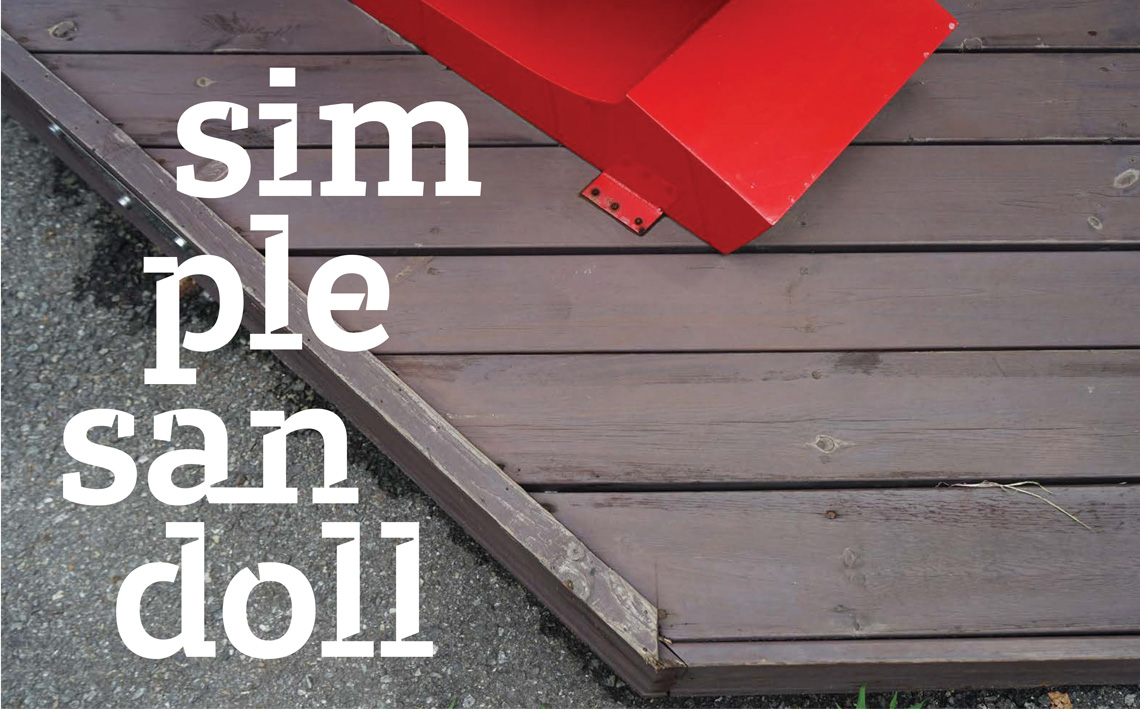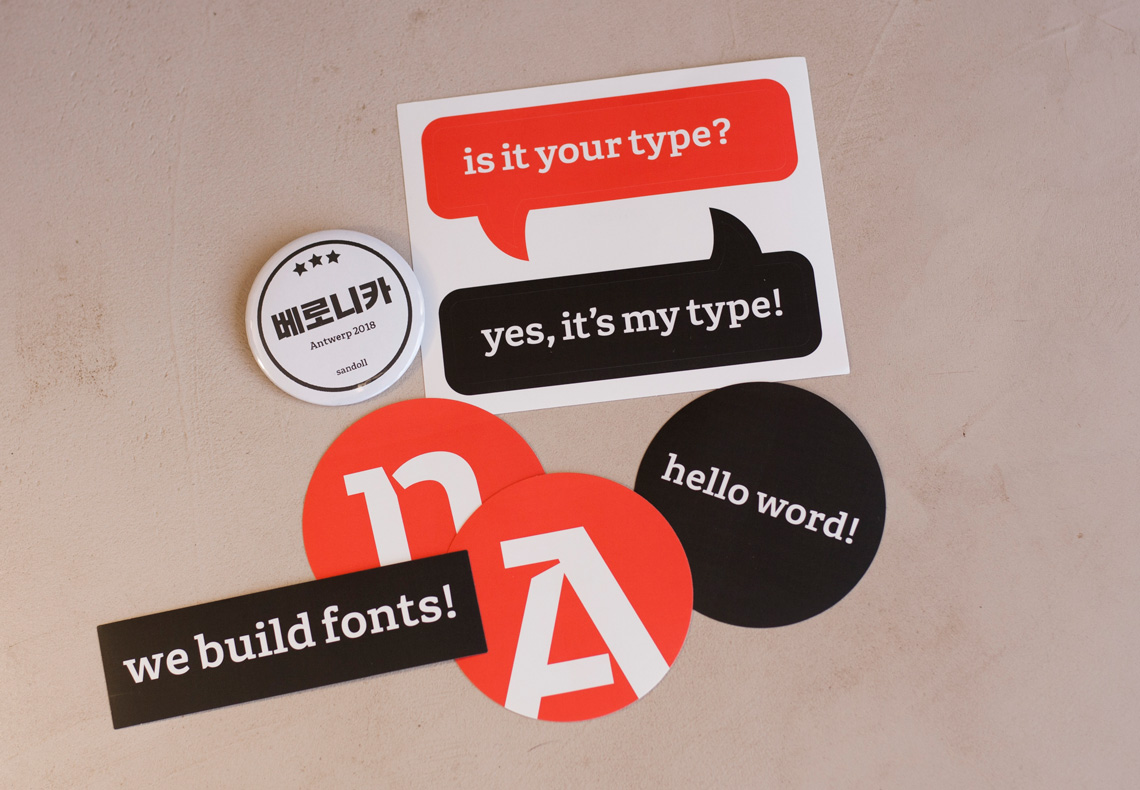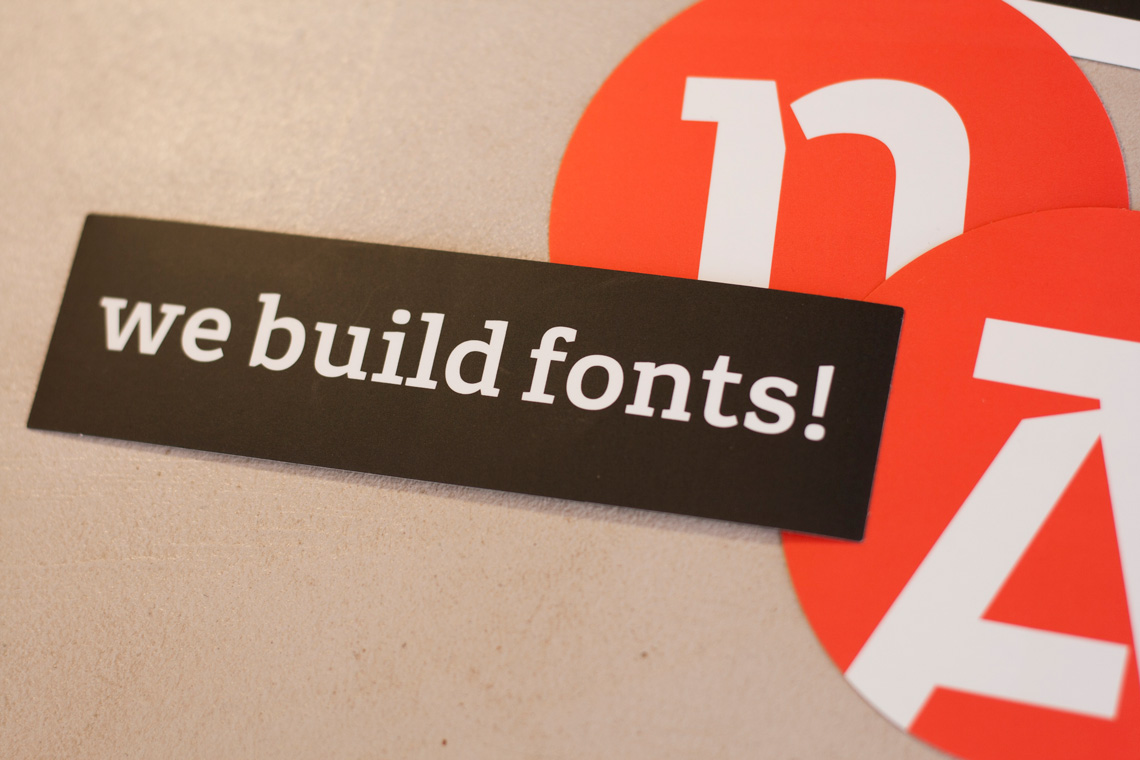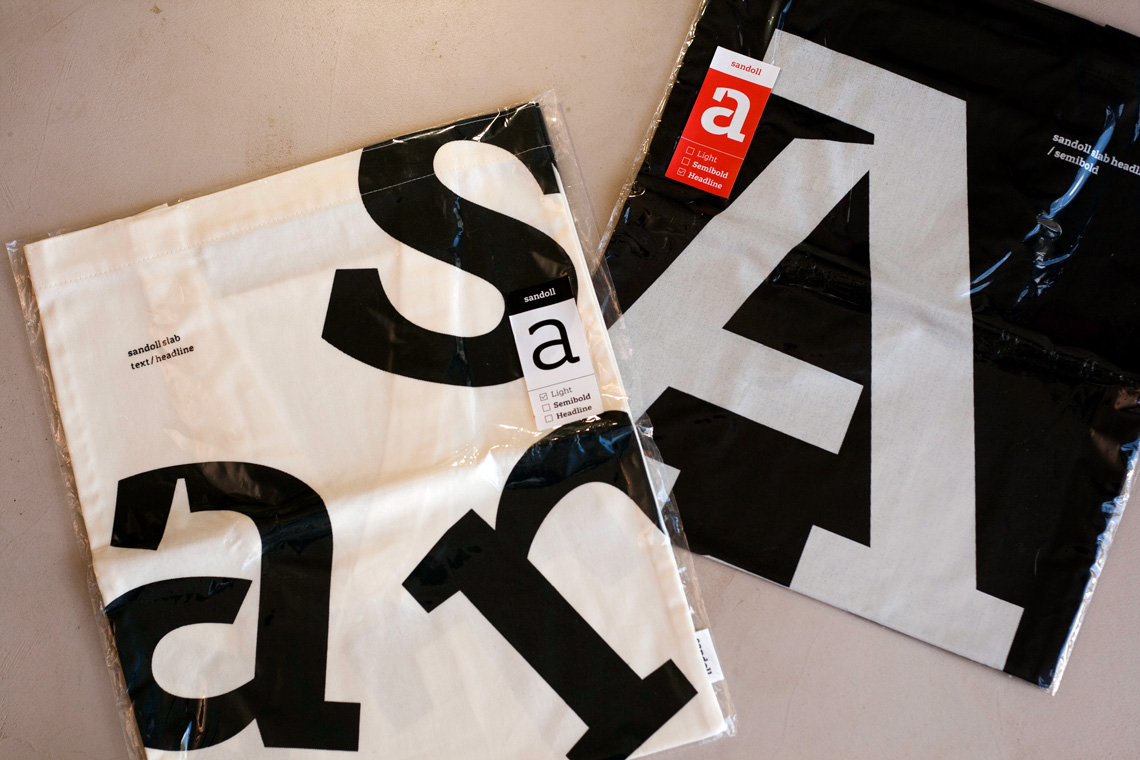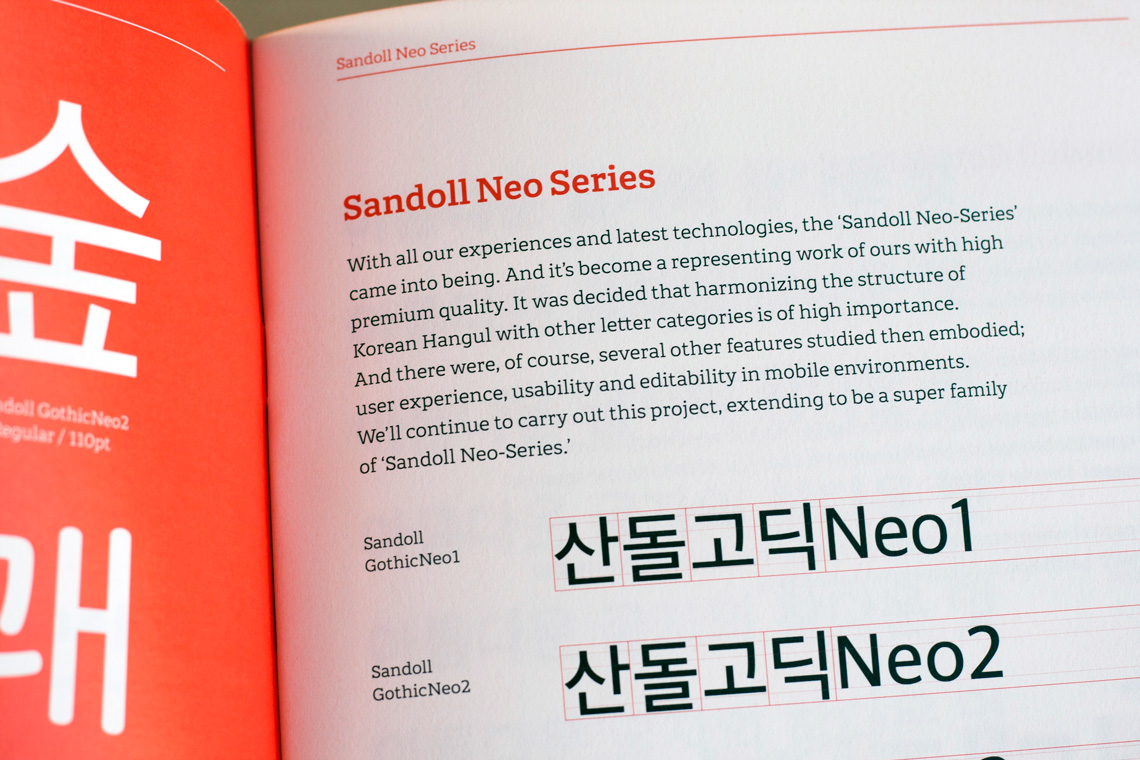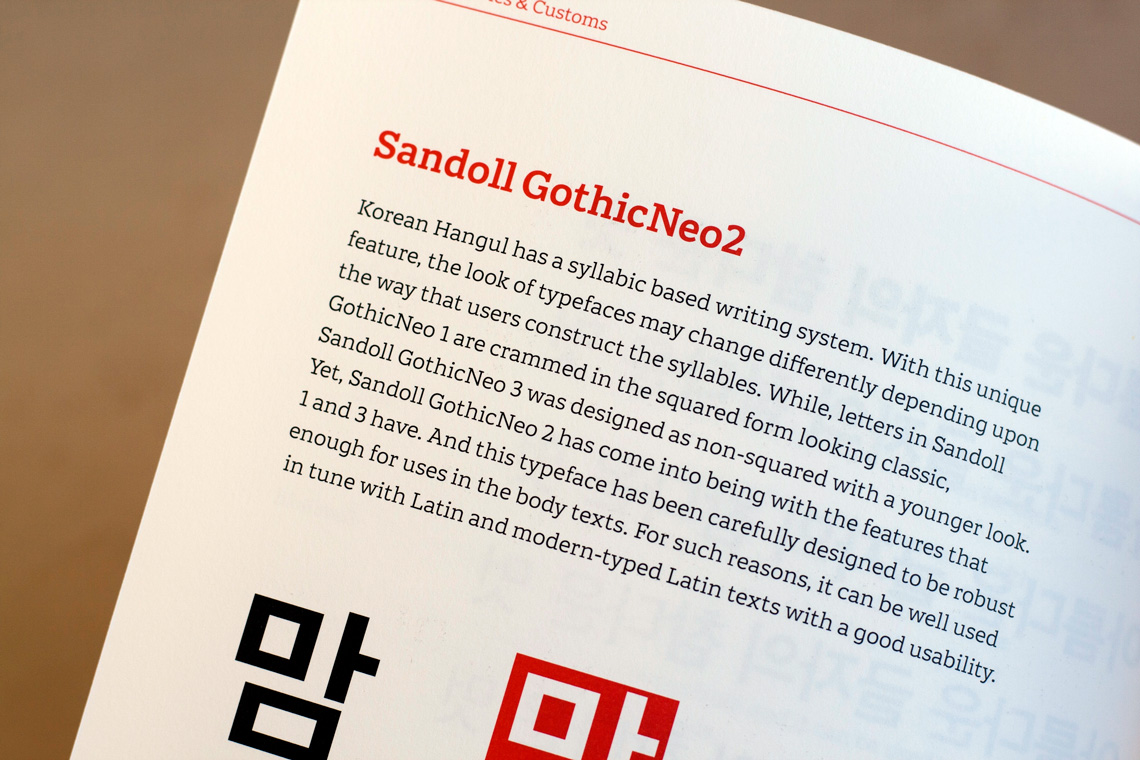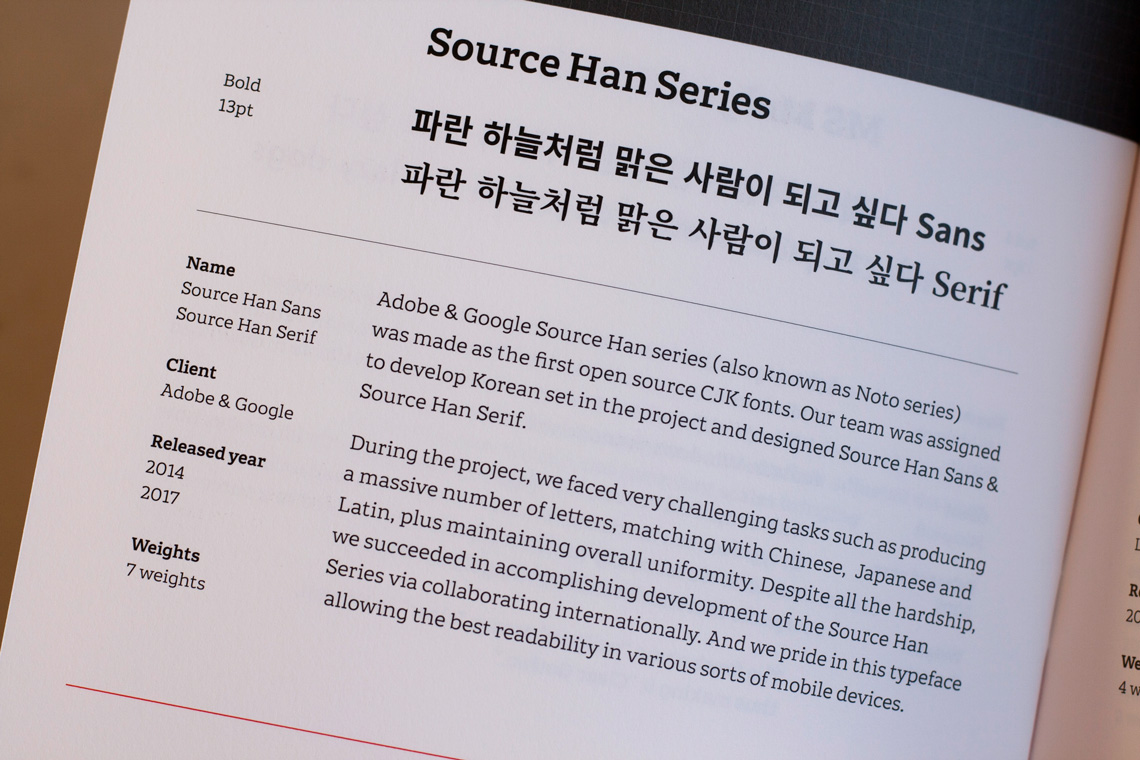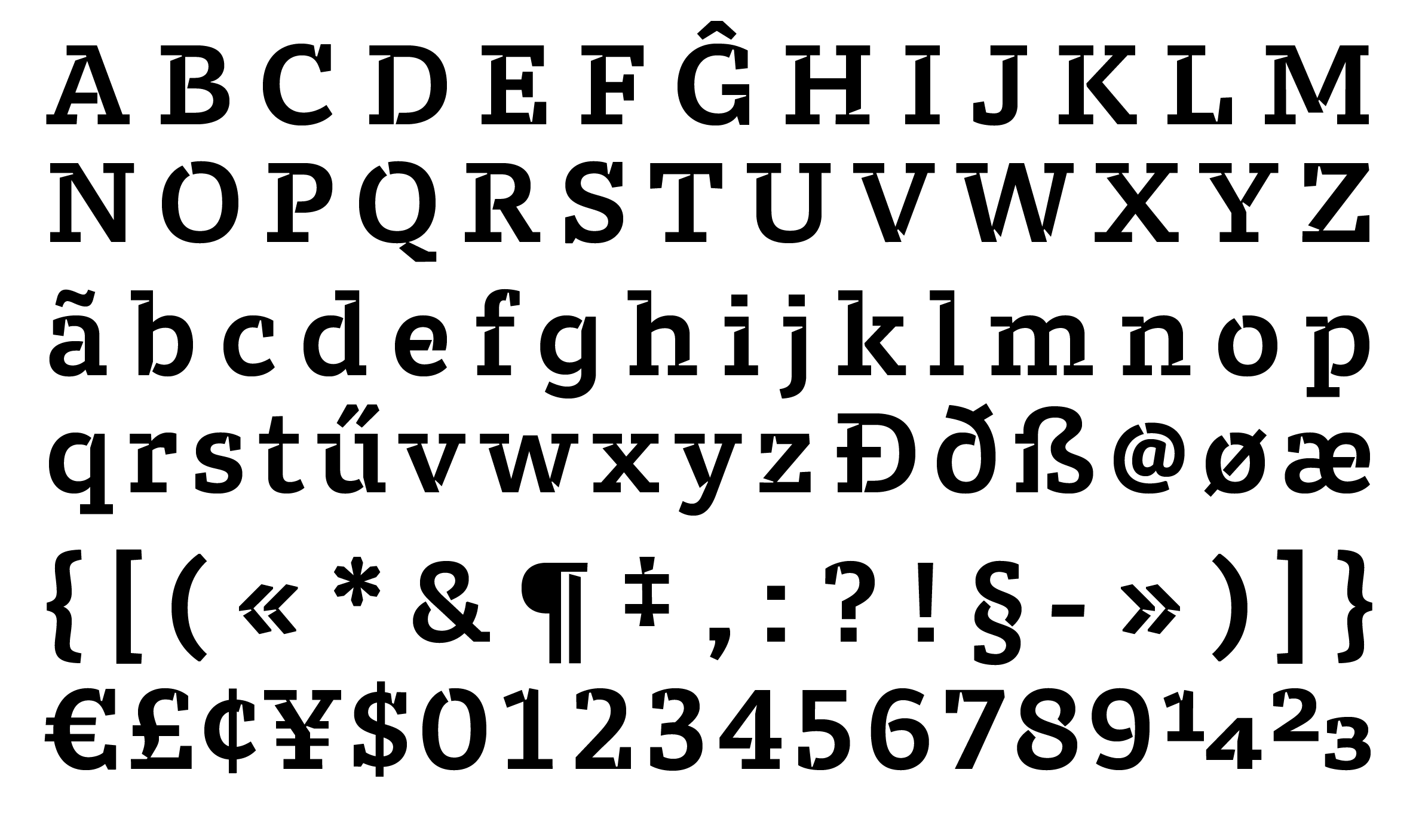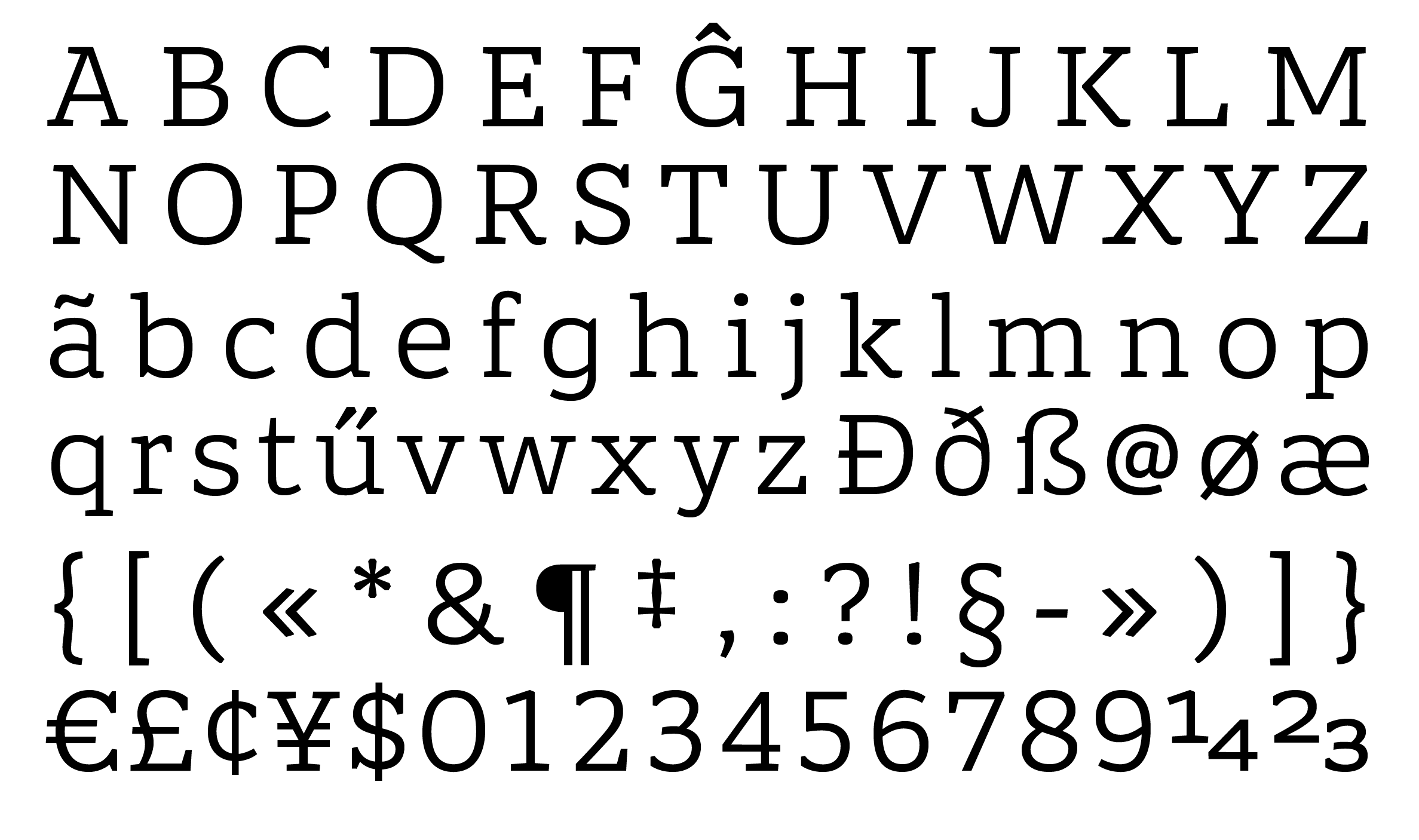
Sandoll Slab Serif
Sandoll, the oldest and most renowned Korean type foundry, asked us to help improve their market position and relationships with global customers by creating a small font family for a range of media.
Sandoll Slab Light used for body text.
Some promotional stickers and cards.
The internal Sandoll team explored several design directions in tune with their defined keywords: living stone, building, friendly, approachable, and connected. Inspiration was derived from stone carving, flowing curves, architecture, and, in particular, the Sandoll headquarters building with the aesthetic of open-faced bricks and steps of wood cladding. Sandoll then turned to TypeTogether and commissioned the development of two text styles and one headline font, using Sandoll’s sketches as a base.
One of the first steps was to define the function of the three fonts. The Semibold would be used as the principal corporate typeface for Sandoll and its logotype: for highlights, subtitles and decks, body copy in small quantities, and short sentences at intermediate sizes.
The Light would be used mainly for body copy and for short sentences at intermediate sizes to be applied in all printed material and digital devices. Both weights needed to share the same visual language and features.
The Headline would be an additional font style with eye-catching appeal. It would be used for headlines in advertising, promotional material, websites, and any other situations where highlighted texts are needed. It was also decided that it should harmonise with the rest of the family.
The three styles: Sandoll Slab Light & Semibold, and Sandoll Headline.
The new corporate typeface was also intended to form the new Sandoll logo. Therefore it was decided to start with the Semibold and analyse Sandoll’s basic sketches first. The general design direction was pretty much set: the type family needed to be a low-contrast slab serif.
Two initial proposals were developed working with just a small set of letters, “videospan”. These letters are key characters that define the DNA of the typeface, the proportions, design details, serifs, terminals, contrast, etc. Once these essential decisions have been finalised, the character set can be more easily expanded.
Apart from general changes such as improving the drawing quality, curve tension, letter proportions, contrast, and spacing, some recognisable design details were developed. The first version refined the serif structure to be more appropriate for a text typeface, more pleasing and fluid. The terminals on ‘a’ and ‘s’ were changed to provide a more open feel, add more interesting features and better counter space for reading, and to add an outstroke on the baseline to give the typeface increased recognisability.
The other suggestion kept the serifs closer to the original design, but modified them to feel appropriate for Latin reading and kept the serif-like terminals. The overall impression is stiffer than the other design and therefore possibly a good starting point for the headline font. This ended up being a more difficult process than expected. For the sake of exploration, and because Sandoll’s supplied aesthetic had to be outlined more clearly, many different ideas and proposals were offered, discussed, and winnowed.
With time and more focused exploration regarding how Sandoll expected to use the headline font, a design path was shaped that resulted in a striking design with very recognisable cuts. The stem width, low contrast, modulation, and overall letter construction is now equal to the Text Semibold, but the serifs and terminals gained a geometric, constructed shape that aligns with the architectural nature of the initial brief.
Comparison between Sandoll Slab Semibold and Sandoll Headline.
For the international typography conference ATypI, the Sandoll design team prepared an array of beautiful promotional materials, including tote bags with different designs using single letters, stickers with their tagline “We build fonts”, little handbooks and specimens, wishing cards, and much more.
With their new branding, Sandoll continues its postion as the leader in Korean type design. We are honoured to have partnered with them to create the three-weight custom type family that brings their values and strengths into the very words their customers read.